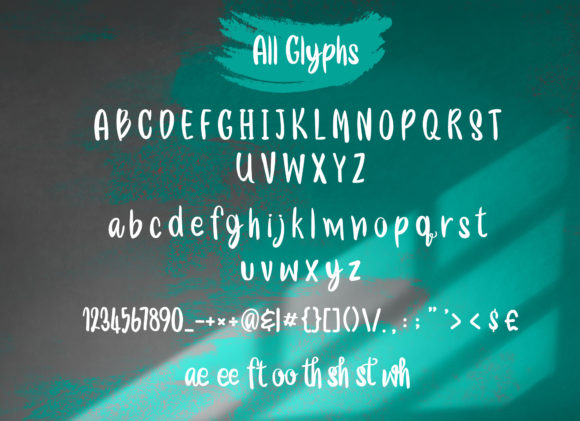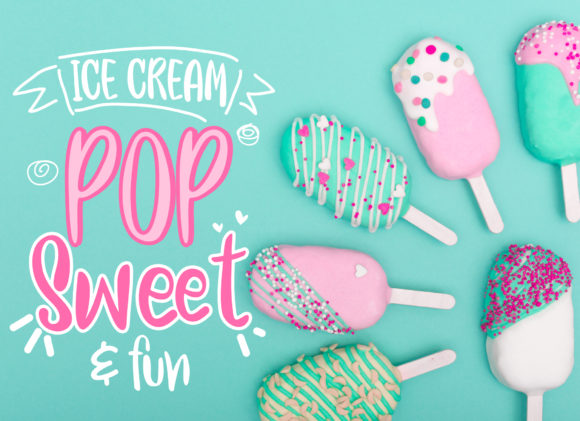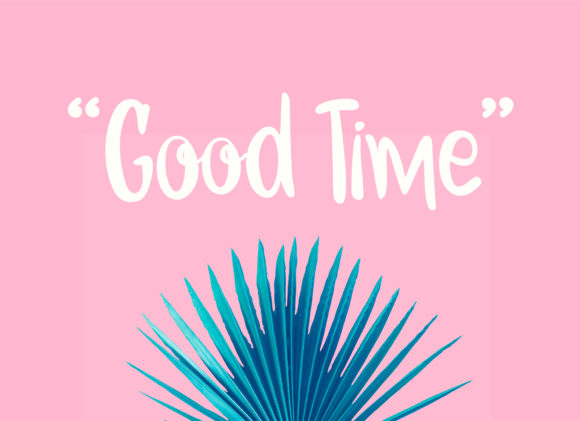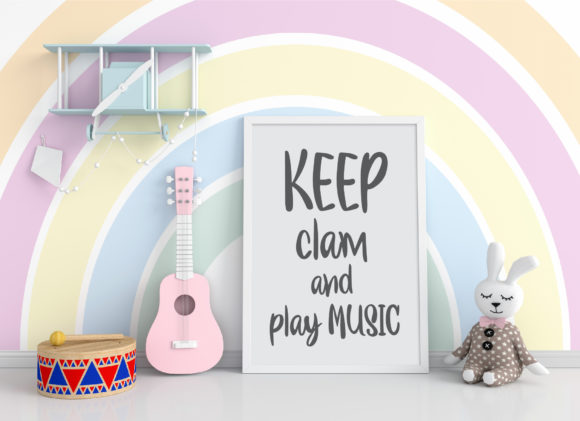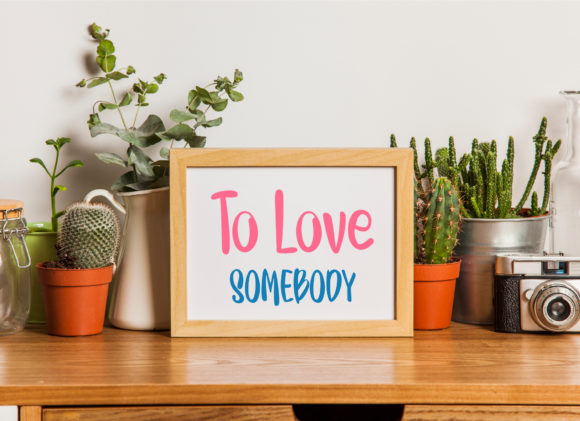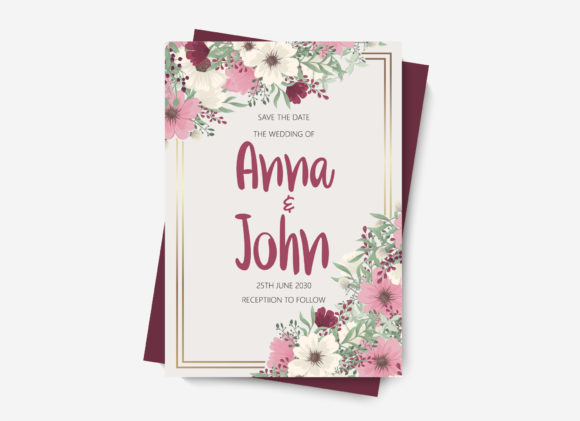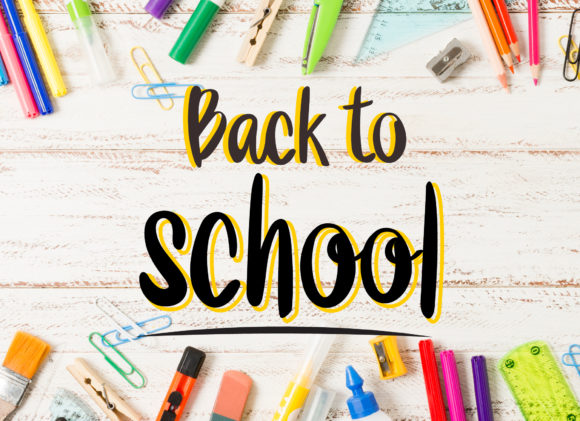
Nobody Font
About Nobody Font
Nobody is a cute and quirky handwritten font. Its natural and unique style makes it incredibly fitting to a large pool of designs. The only limit is your imagination!